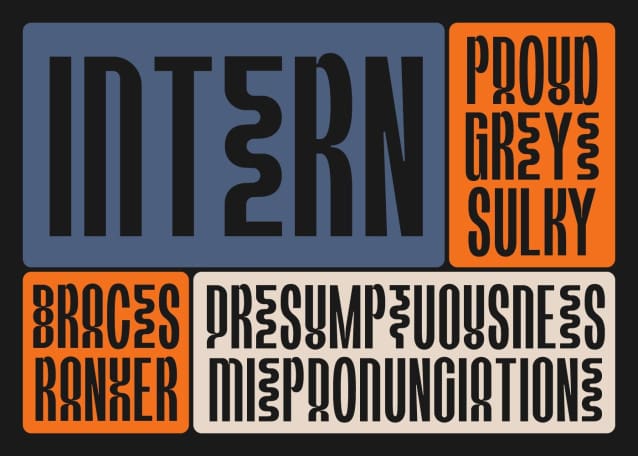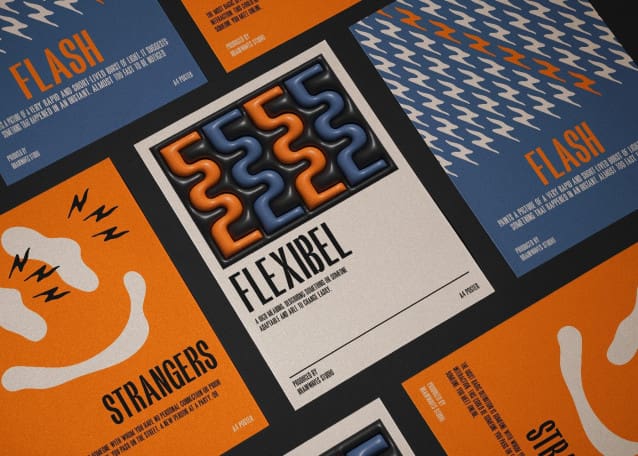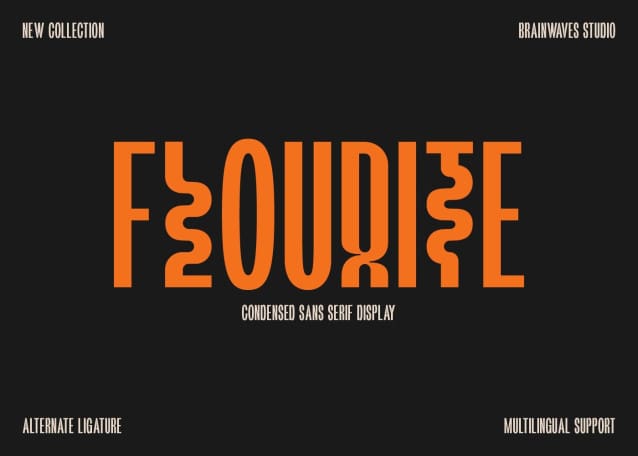
Flourite Font
Flourite Font is a bold, modern, and striking display sans serif with a fun and flexible touch. Its condensed design exudes a futuristic and edgy vibe, making it perfect for branding, posters, editorials, and experimental designs that demand attention.